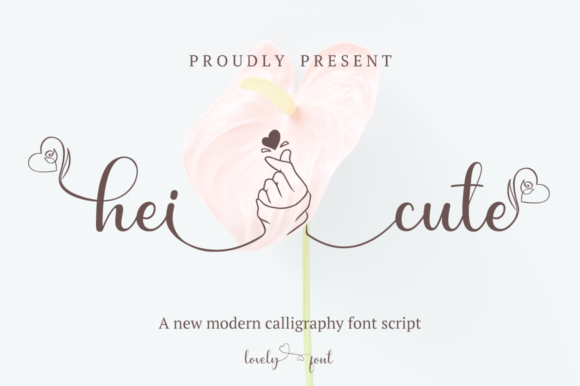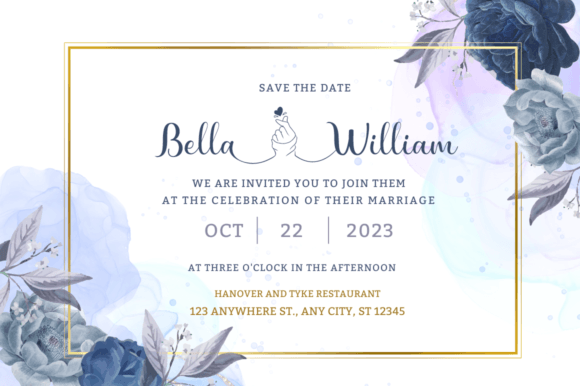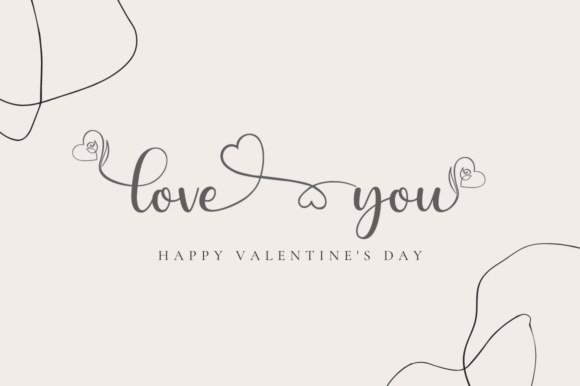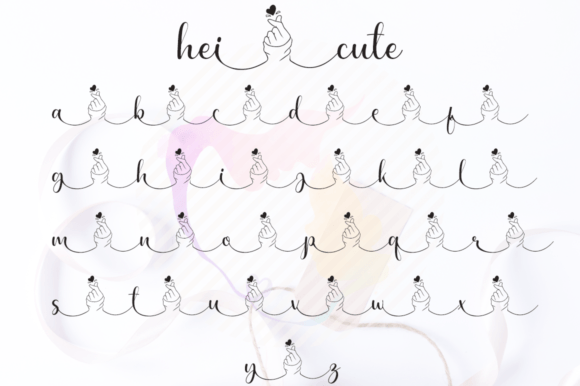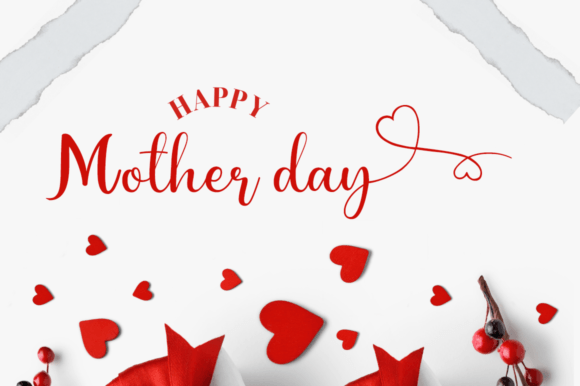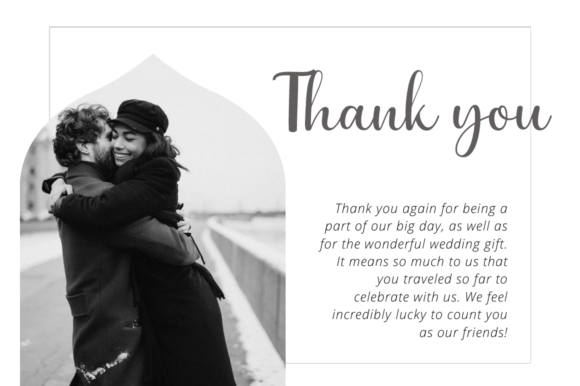
Discover the Charm of Hei Cute Font: A Modern Calligraphy Design
In the world of typography, fonts play a crucial role in conveying messages, expressing emotions, and creating visual identities. For designers, crafters, and creative enthusiasts, finding the perfect font can be a daunting task. However, if you’re looking for a modern calligraphy font that exudes charm and elegance, look no further than Hei Cute Font. In this article, we’ll explore the features, uses, and benefits of Hei Cute Font, and why it’s a must-have for your design projects.
What is Hei Cute Font?
Hei Cute Font is a modern calligraphy font design that features a regular style with a unique and lovely aesthetic. This font is perfect for those who want to add a touch of sophistication and whimsy to their designs. With its flowing lines and delicate curves, Hei Cute Font is sure to capture the attention of your audience and leave a lasting impression.
Uses of Hei Cute Font
One of the best things about Hei Cute Font is its versatility. This font can be used for a wide range of purposes, including:
- Logos: Create a memorable and distinctive logo for your brand with Hei Cute Font.
- Product packaging: Add a touch of elegance to your product packaging with this beautiful font.
- Wedding invitations: Make your wedding invitations truly special with Hei Cute Font.
- Branding: Establish a strong brand identity with this modern calligraphy font.
- Headlines: Create eye-catching headlines for your blog posts, articles, or advertisements.
- Signage: Use Hei Cute Font for signage, banners, or posters to grab attention.
- Labels: Design custom labels for your products or gifts with this lovely font.
- Signatures: Add a personal touch to your email signatures or digital documents.
- Book covers: Create stunning book covers with Hei Cute Font.
- Posters: Design beautiful posters for events, promotions, or awareness campaigns.
- Quotes: Highlight inspiring quotes or phrases with this elegant font.
Benefits of Using Hei Cute Font
So, why should you choose Hei Cute Font for your design projects? Here are some benefits:
- Elegance and sophistication: Hei Cute Font adds a touch of elegance and sophistication to your designs.
- Uniqueness: This font has a unique and distinctive style that sets it apart from other fonts.
- Versatility: Hei Cute Font can be used for a wide range of purposes, from logos to book covers.
- Easy to read: Despite its elegant design, Hei Cute Font is easy to read and understand.
- Customizable: You can customize the font to fit your brand’s style and tone.
Tips for Using Hei Cute Font
To get the most out of Hei Cute Font, here are some tips:
- Pair with other fonts: Pair Hei Cute Font with other fonts to create a unique and harmonious design.
- Experiment with colors: Try out different colors to find the perfect match for your design.
- Adjust font sizes: Adjust the font size to create visual hierarchy and emphasis.
- Use it sparingly: Use Hei Cute Font sparingly to create a lasting impression.
In conclusion, Hei Cute Font is a modern calligraphy font design that offers elegance, sophistication, and versatility. With its unique and lovely aesthetic, this font is perfect for designers, crafters, and creative enthusiasts who want to add a touch of charm to their designs. Whether you’re creating logos, product packaging, wedding invitations, or book covers, Hei Cute Font is a must-have font that will help you stand out from the crowd.